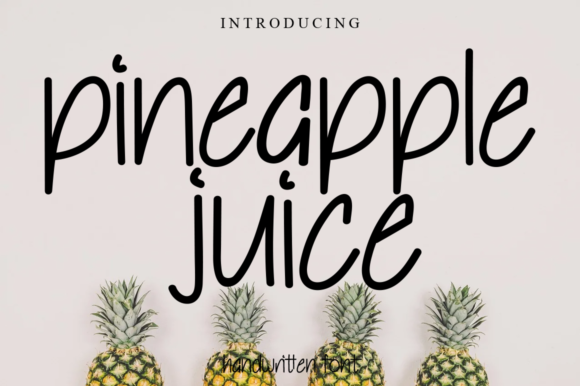
Journey into the realm of Pineapple Juice Font, where creativity dances harmoniously with elegance. This captivating script font, meticulously crafted by the visionary A2-lucky, beckons you to embark on a voyage of self-expression. Its enchanting strokes, born from the fusion of passion and artistry, will transform your words into captivating works of art.
Pineapple Juice Font exudes a relaxed and refreshing aura, evoking the joy of a tropical breeze caressing your senses. Its natural and unique style invites you to break free from the mundane, to explore the boundless realm of imagination. Let your creativity soar as you craft stunning designs that radiate warmth and personality.
Whether you're a seasoned designer or just starting your creative journey, Pineapple Juice Font is your trusty companion. Its versatility knows no bounds, seamlessly adapting to a myriad of design projects. From captivating logos that command attention to elegant branding that leaves a lasting impression, this font is your secret weapon to unlock a world of possibilities.
Harness the power of Pineapple Juice Font to elevate your resumes and professional documents. Its graceful curves and flowing lines lend an air of sophistication that will make your applications stand out from the crowd. Let your skills and experience shine through, captivating potential employers with a presentation that exudes confidence and creativity.
Beyond the realm of business, Pineapple Juice Font adds a touch of whimsy and charm to invitations, greeting cards, and social media posts. Its ability to transform ordinary text into captivating expressions makes it the perfect choice for adding a personal touch to your digital interactions. Spread joy and inspiration with every message, igniting the imaginations of those who encounter your words.
With Pineapple Juice Font, you're not just downloading a font; you're unlocking a gateway to a world of boundless creativity. Its captivating strokes will ignite your imagination, propelling you to new heights of self-expression. Embrace the beauty of handwritten elegance and embark on a creative journey that will leave you breathless. Unleash the power of Pineapple Juice Font today and let your creativity flourish.